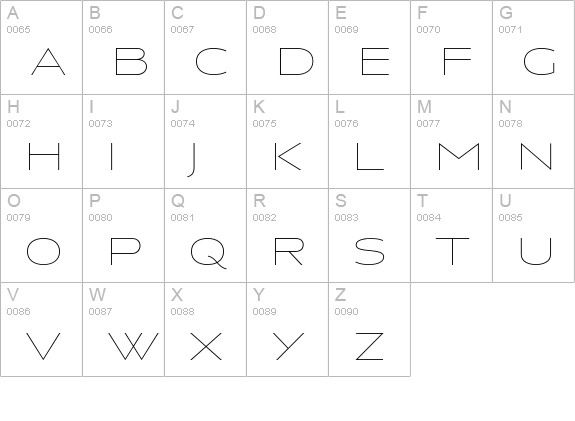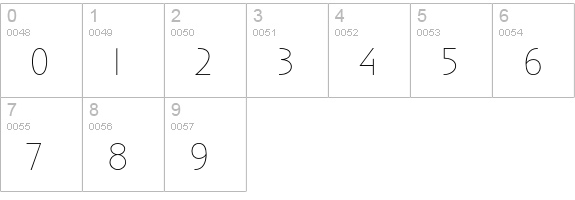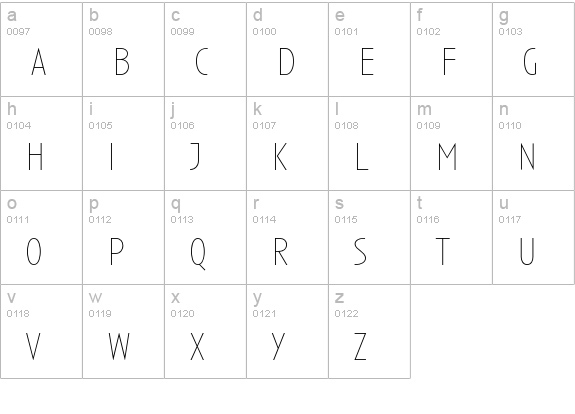
Anisette-Thin Font Details
Anisette-Thin is a delicate, low-contrast variant in the Anisette typeface family \xE2\x80\x94 well suited to fashion editorial, minimal branding, and high-contrast display.
Anisette-Thin font is a sleek and elegant typeface that exudes sophistication and modernity. Its thin, delicate lines create a sense of refinement and grace, making it perfect for projects that require a touch of elegance. Whether used for branding, editorial design, or wedding invitations, Anisette-Thin font adds a touch of class to any project. Best of all, Anisette-Thin font is completely free to download at FontsMarket.com. This means you can elevate your designs without breaking the bank. Don't miss out on this opportunity to enhance your projects with this beautiful and versatile typeface. Download Anisette-Thin font today and take your designs to the next level!